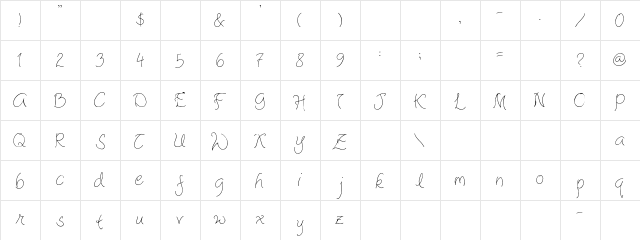
SBC Designer Notes Font Preview
Design Context for SBC Designer Notes Typeface
SBC Designer Notes is a composed and adaptable typeface that performs quietly and consistently across a wide range of design contexts.